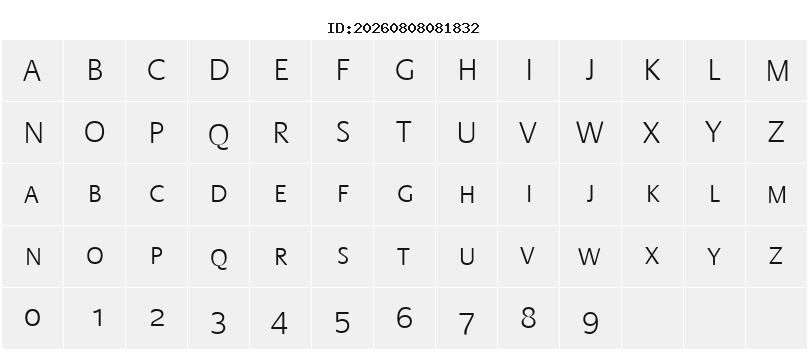
• Font Name: Praxis LT LightSC
• Full Font Name: Praxis LT Light SC
• Manufacturer: Linotype Library GmbH
About Praxis LT LightSC.ttf
Praxis LT LightSC.ttf is a modern, elegant sans-serif font designed for ultimate readability and visual harmony. Perfect for branding, headlines, web design, and print materials.